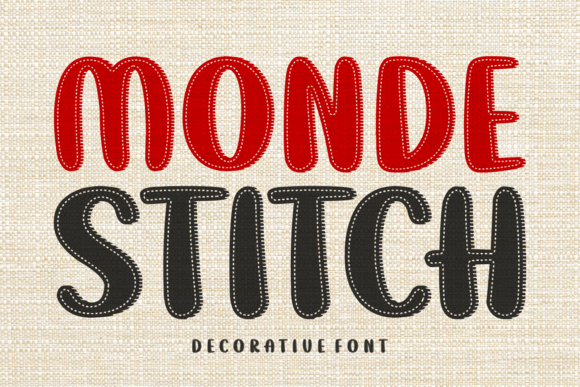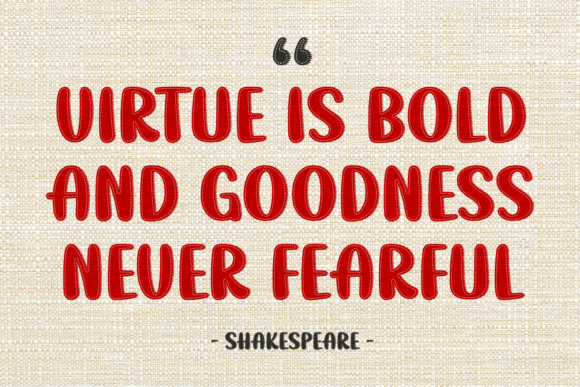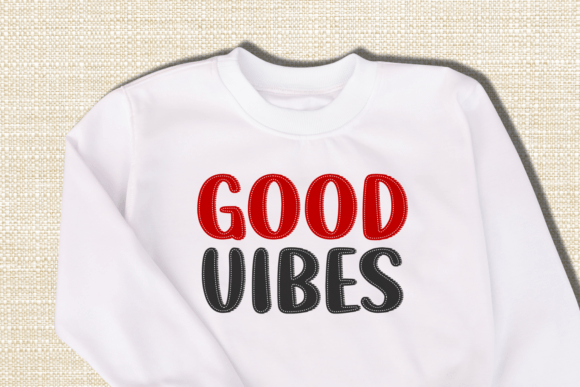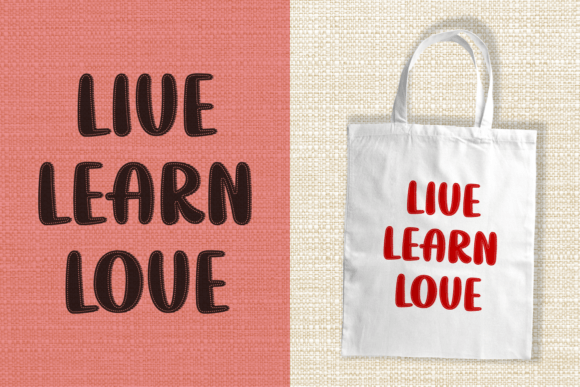
Monde Stitch Font: A Playful & Crafty Display Font for DIY Projects
About the Monde Stitch Font
Presenting Monde Stitch Font, a unique and stylish typeface that will make your work stand out. Monde Stitch is a fun and decorative font that brings a touch of sewing magic to your letters. With a charming design reminiscent of stitches, this font adds a playful and crafty vibe to your projects. Perfect for adding a handmade touch to your designs, Monde Stitch is a delightful choice for anyone looking to infuse a bit of whimsy into their text.
Monde Stitch thrives in applications requiring a playful and handcrafted aesthetic. It excels in short headlines, logos for craft businesses, children’s products, and packaging design where its unique texture adds visual interest. Avoid using it for large blocks of body text or UI elements; its decorative nature compromises readability in longer passages.
Its friendly and whimsical personality pairs well with clean sans-serif fonts like Open Sans for a balanced contrast, or a more geometric sans-serif like Montserrat for a modern feel. For a touch of elegance, consider pairing it with a delicate serif like Playfair Display. Avoid pairing it with other highly decorative fonts, which would create visual clutter.
Monde Stitch’s overall personality is best described as cheerful and approachable, making it ideal for brands focused on warmth, creativity, and a handmade quality.
Monde Stitch Font Usage Examples
Monde Stitch Font Example